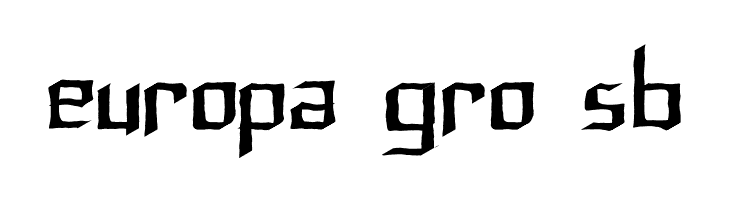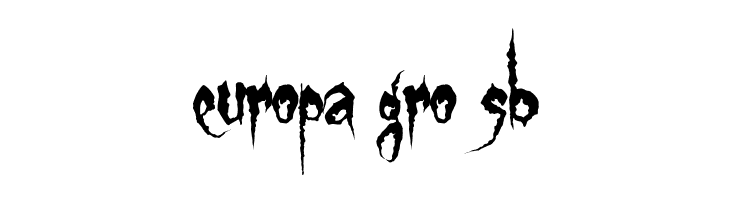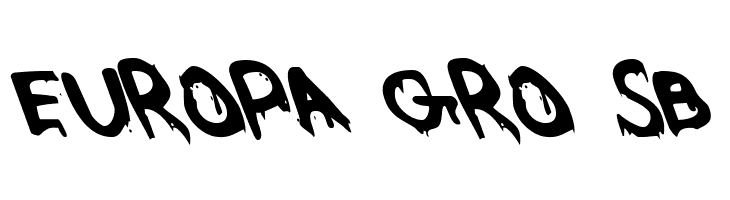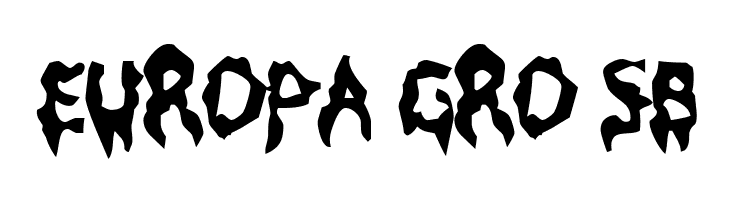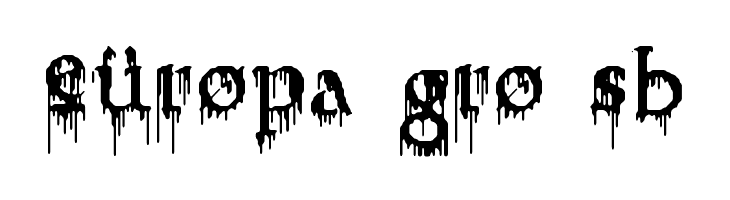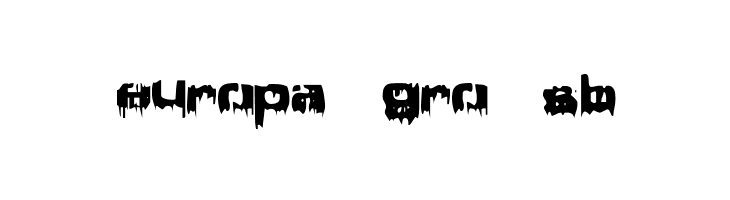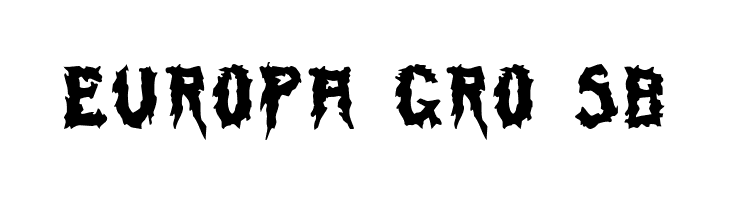
A bold, cracked font with a distressed and edgy appearance.
A dramatic, jagged font with a hand-drawn, eerie appearance.
A wild, jagged font with a dripping, dynamic style.
A bold, decorative font with a dripping, playful style.
A bold, grungy font with a dripping effect, perfect for horror or punk themes.
A bold, jagged font with a hand-drawn, chaotic style.